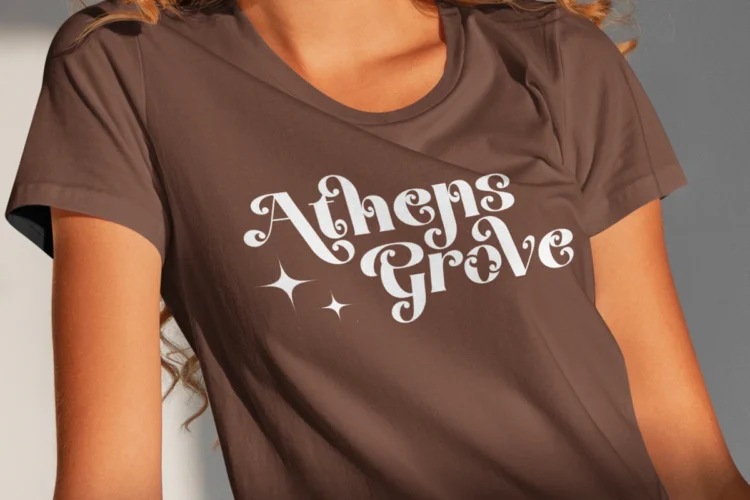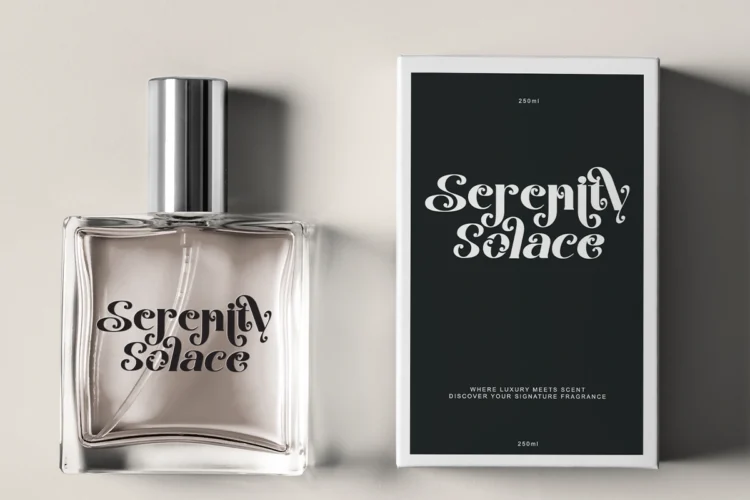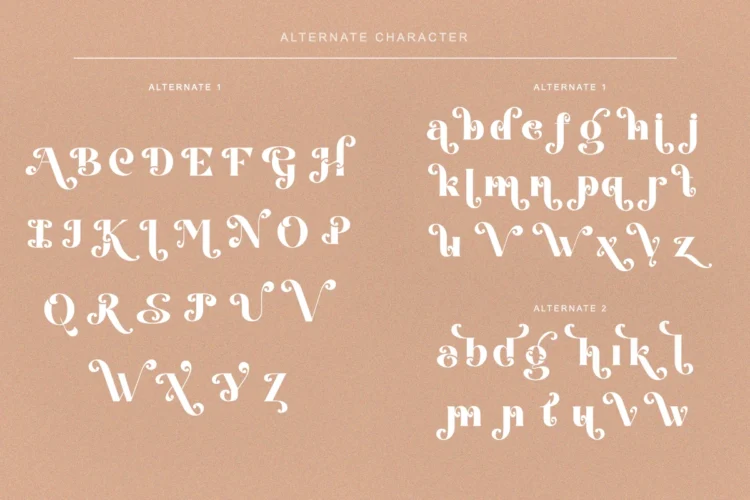
Jalibar is decorative font with a fancy, playful, unique, and versatile vintage serif family with many alternates that you can combine to get curves and beautiful shapes easily just in seconds. Jalibar with moderate contrast that perfect for branding projects, logo, wedding designs, social media posts, advertisements, product packaging, product designs, label, photography, watermark, invitation, stationery, and any projects, it makes with a high level of legibility. What's Included: - Jalibar Regular ( TTF, OTF, WOFF ) - Jalibar Italic ( TTF, OTF, WOFF ) - 50+ Stylistic Alternates - Multilingual Support Well, thank you for visiting and supports. Don't hesitate if you have any questions and inquiries.